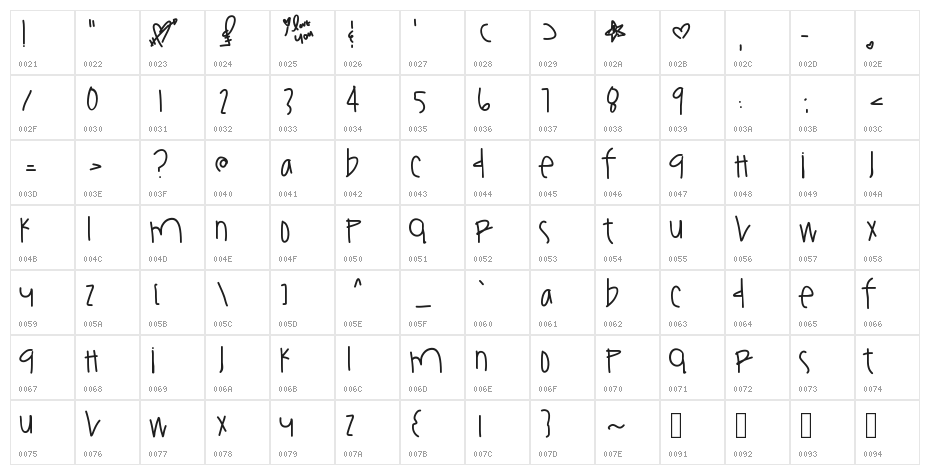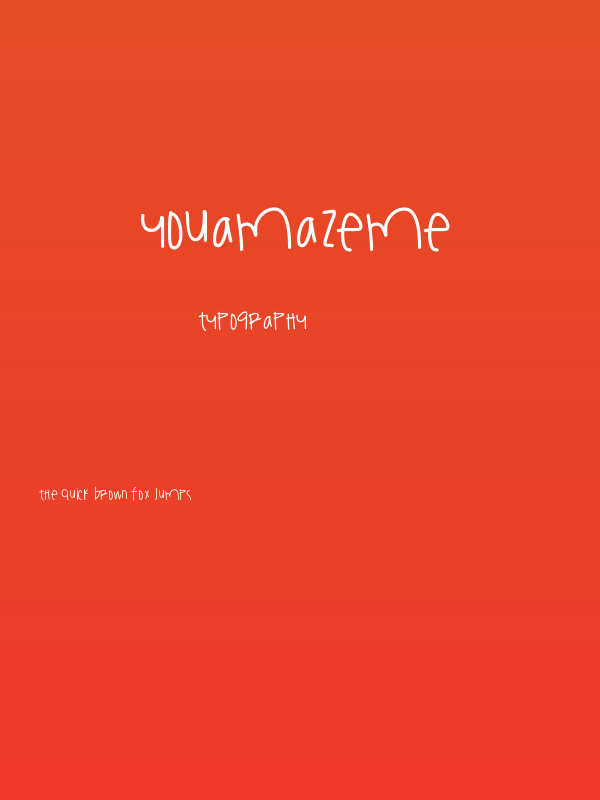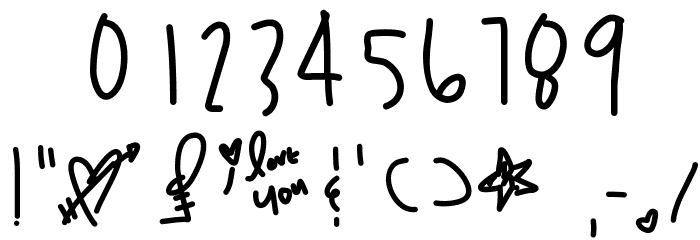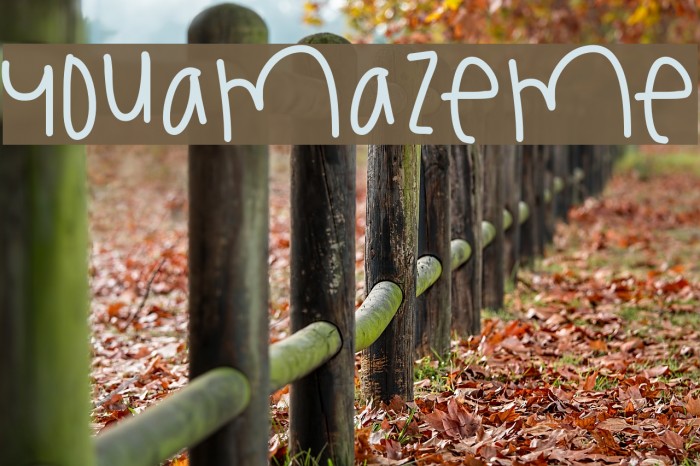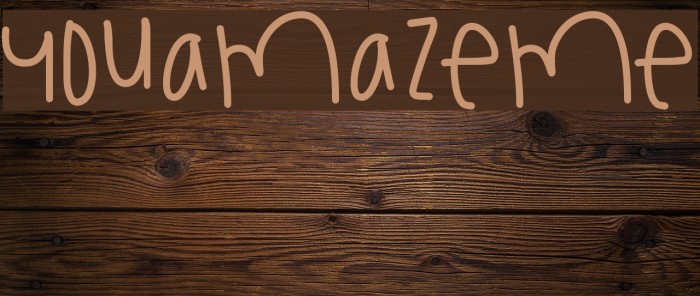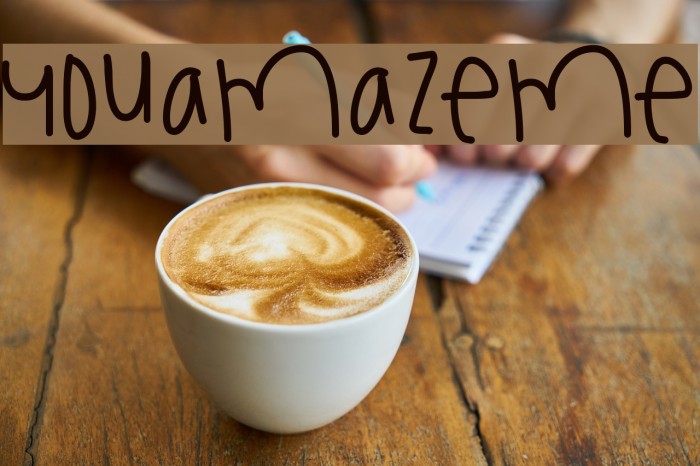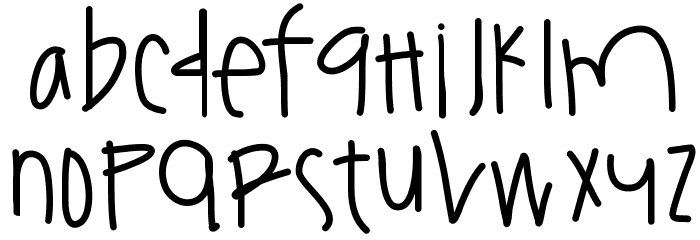
YouAmazeMe Font
YouAmazeMe Description
This playful and whimsical font features a handwritten style with a casual, friendly appearance. The characters are slightly irregular, adding a personal touch that mimics natural handwriting. The strokes are consistent in width, giving it a uniform look while maintaining a lively and informal vibe. The font includes both uppercase and lowercase letters, numbers, and a variety of special characters, making it versatile for different uses. Its charming and approachable style makes it ideal for projects that require a human touch, such as personal notes, invitations, or creative branding.
| Use Case | Logos, Invitations, Personal notes |
| Proposed Projects | Ideal for greeting cards, personal notes, invitations, and creative branding. |